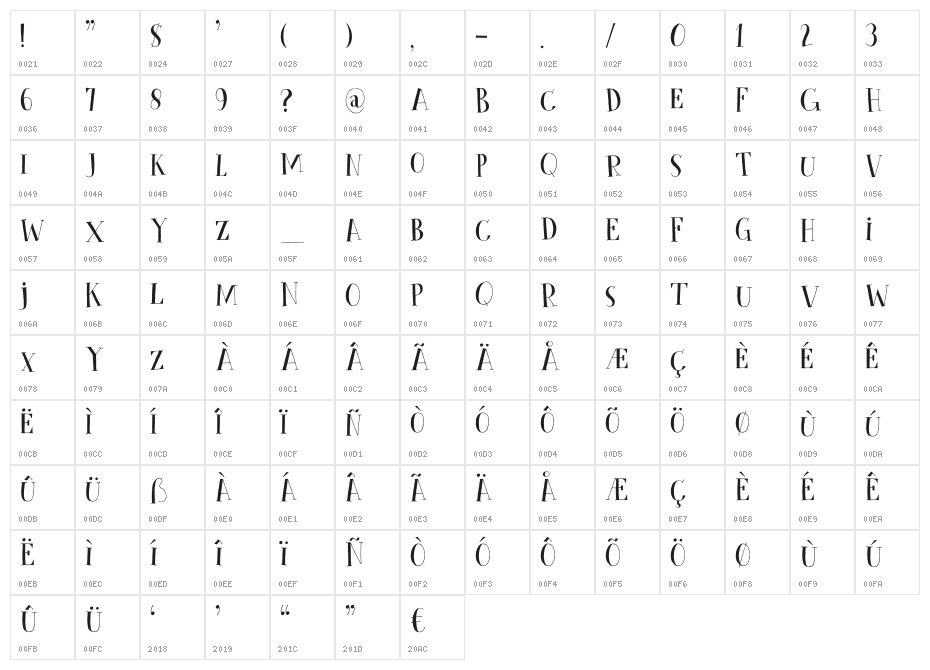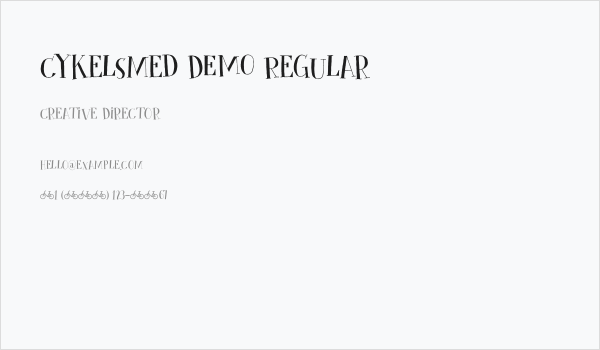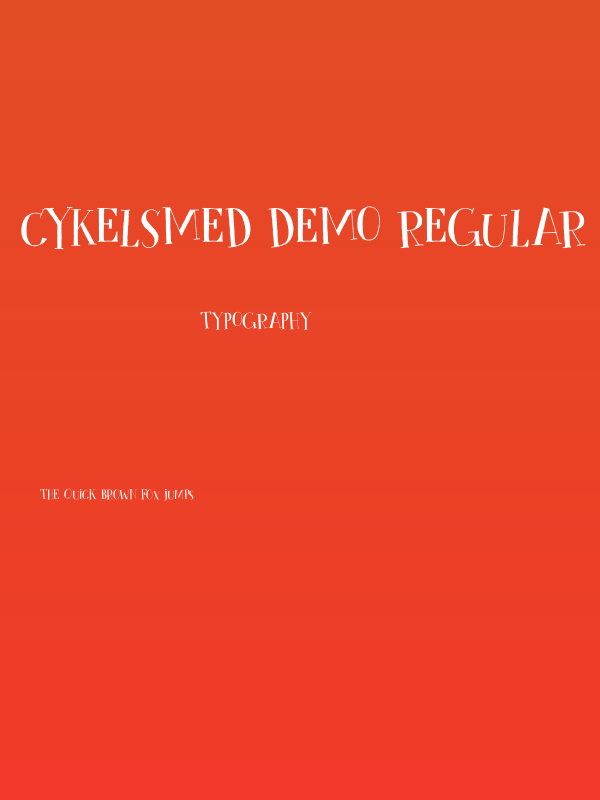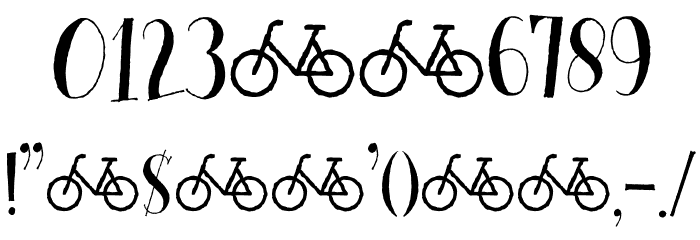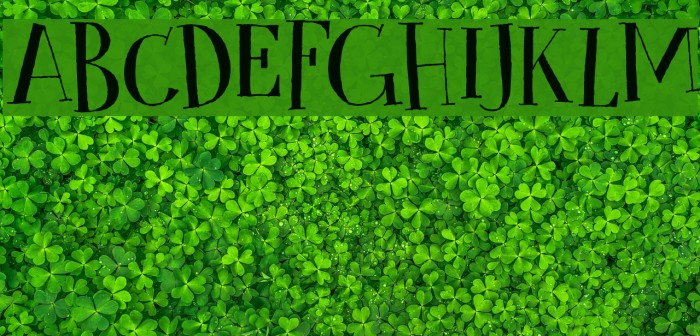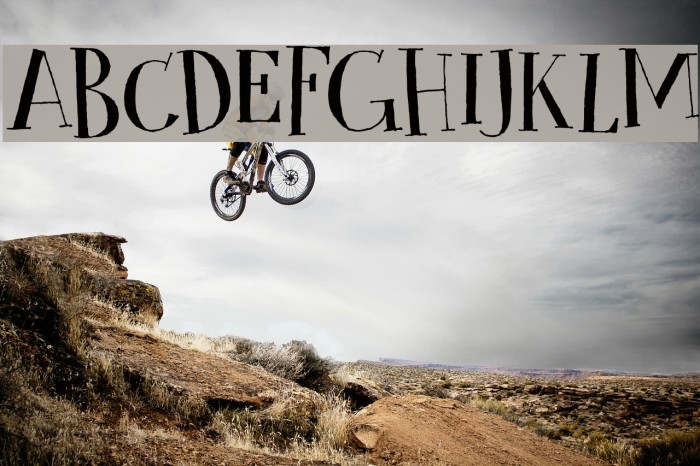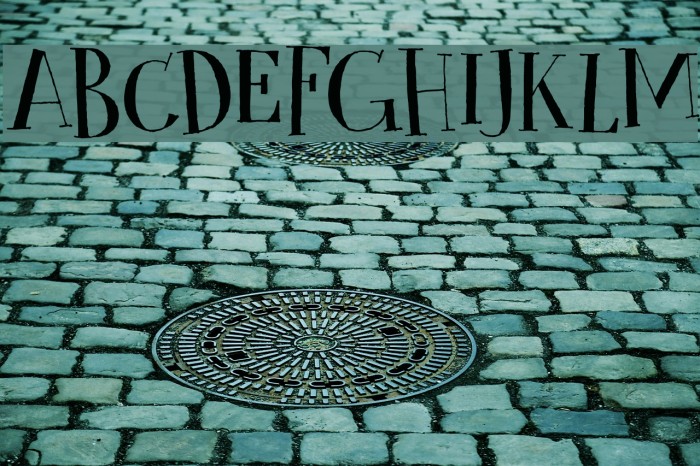
Cykelsmed DEMO Regular Font
This font features a playful and whimsical style with a hand-drawn appearance. The characters are unevenly weighted, giving them a dynamic and lively feel. The uppercase letters have a tall and narrow form, while the lowercase letters maintain a consistent style with slight variations in height and width. The numbers are bold and easily legible, matching the overall quirky aesthetic. Special characters, including a bicycle symbol, add a unique touch to the font, making it stand out. The font's irregular strokes and varying thicknesses contribute to its charm, making it suitable for creative and informal projects.
| Overall Style | Whimsical, Playful |
| Use Case | Logos, Posters, Creative projects |